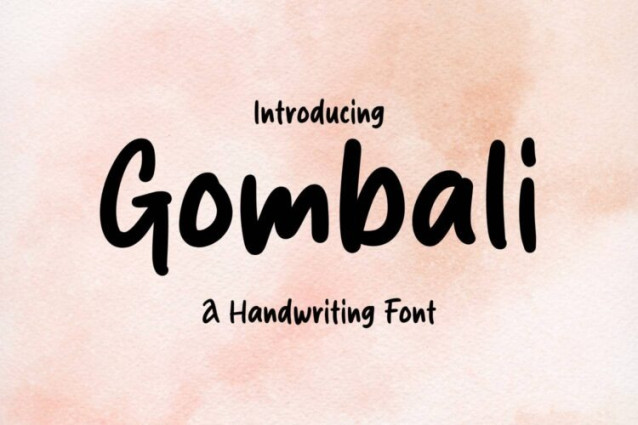
Gombali Font
Gombali Font is a simple and friendly handwritten font. Its natural and unique style makes it incredibly fitting to a large pool of designs. The only limit is your imagination!